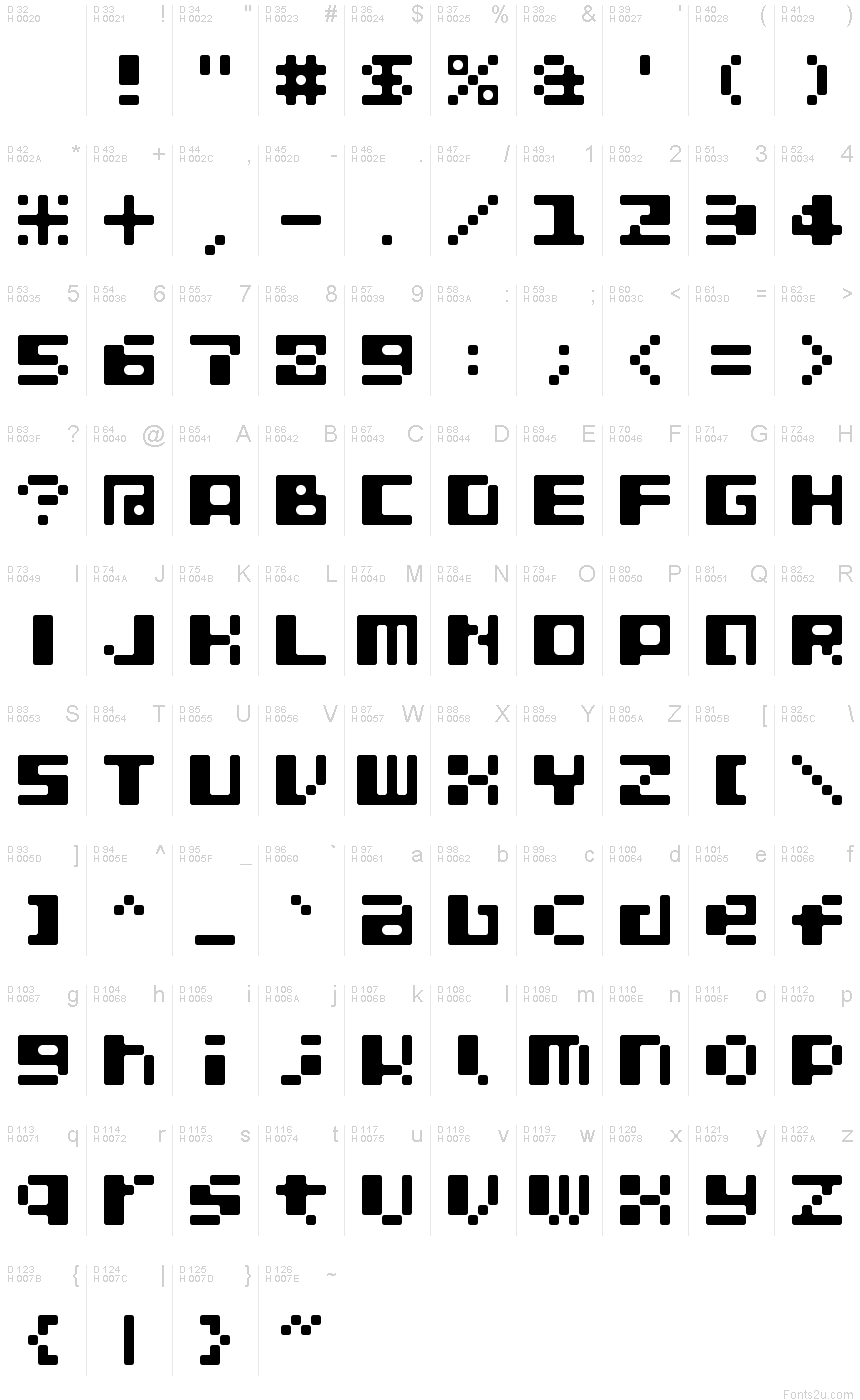
Template 6 is a free modular digital display font, built from broad strokes and squared forms with rounded corners. Repeated breaks turn the letters into interlocking blocks, with narrow slots cutting through their dense silhouettes. The effect is compact and mechanical.
It can play the role of an electronic title treatment for game interfaces, technology event posters, and music packaging, where the segmented construction suggests panels, circuits, or machine parts. Those same block shapes connect with grids, pixel artwork, and geometric icons in digital graphics, making the lettering part of a larger system of modular imagery.